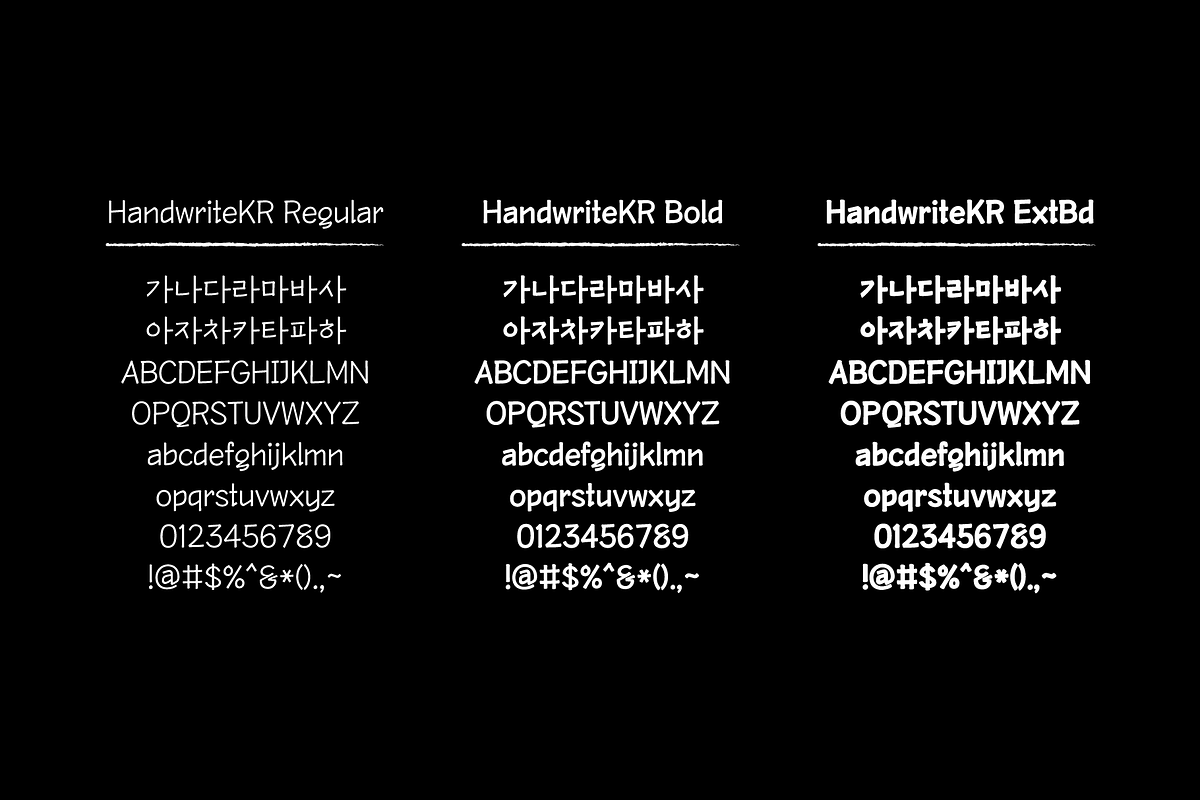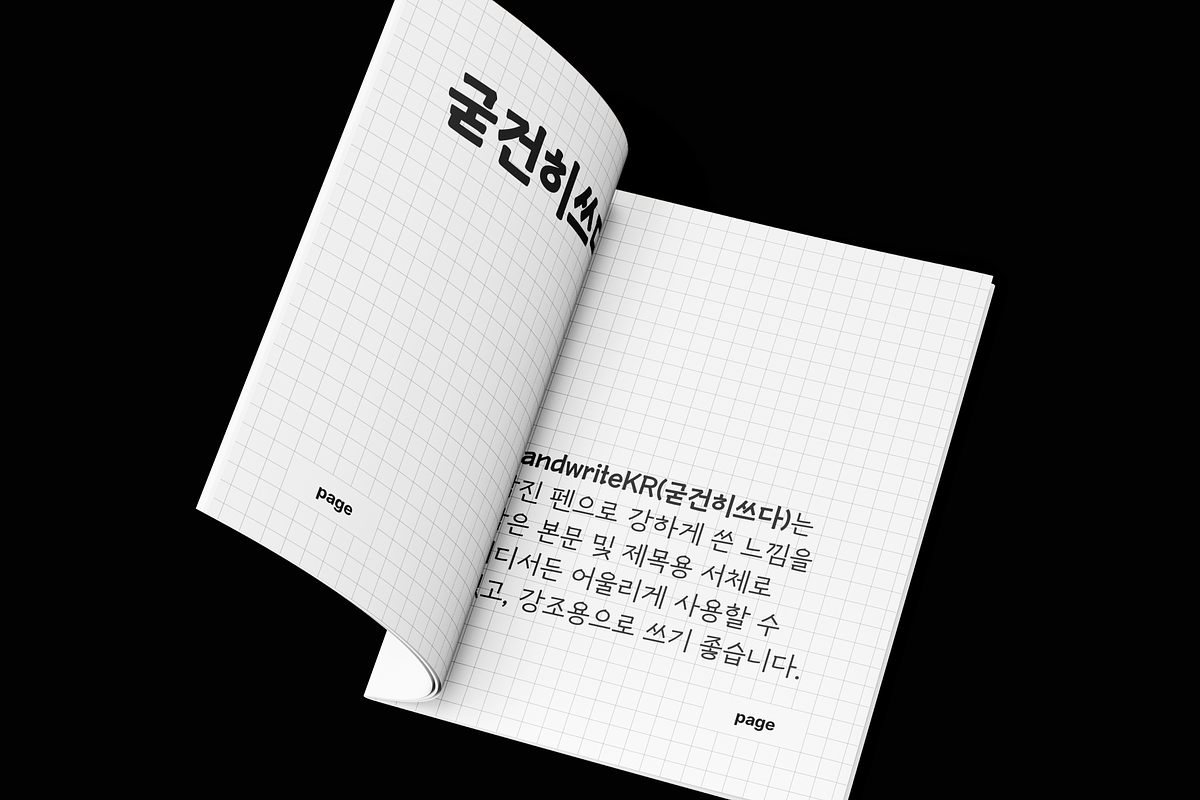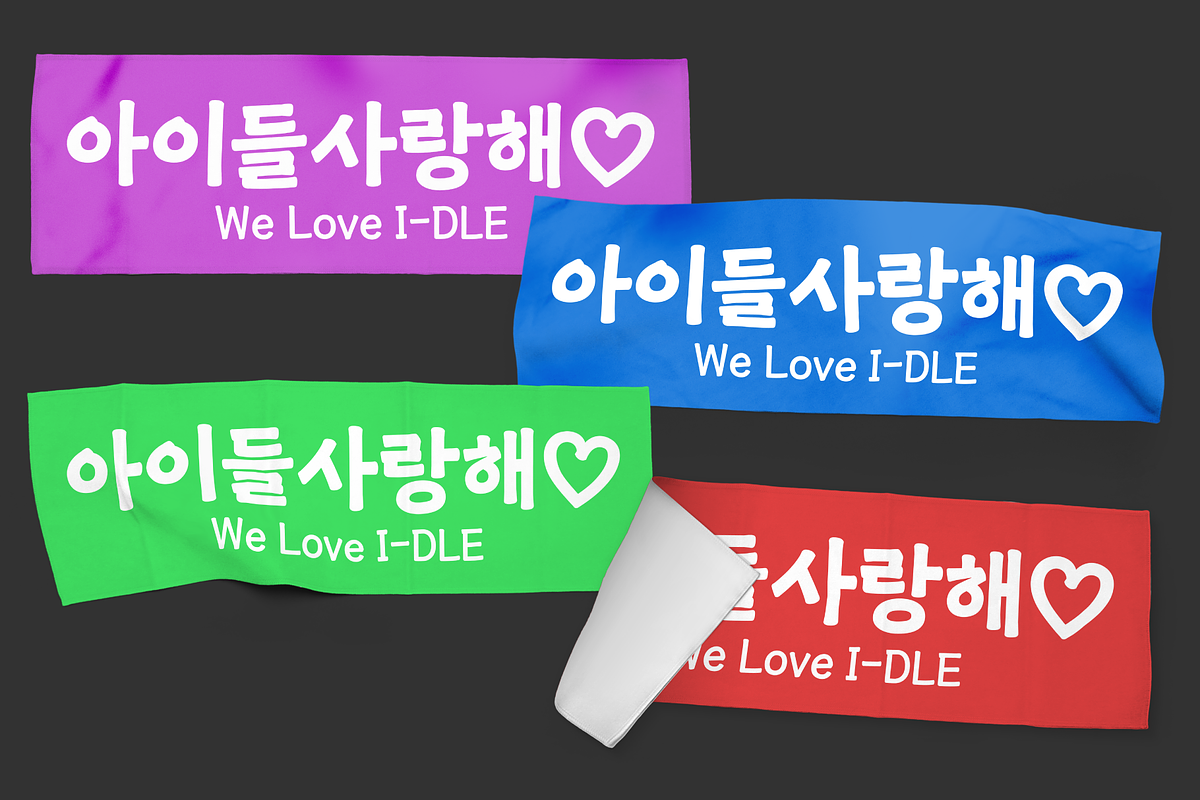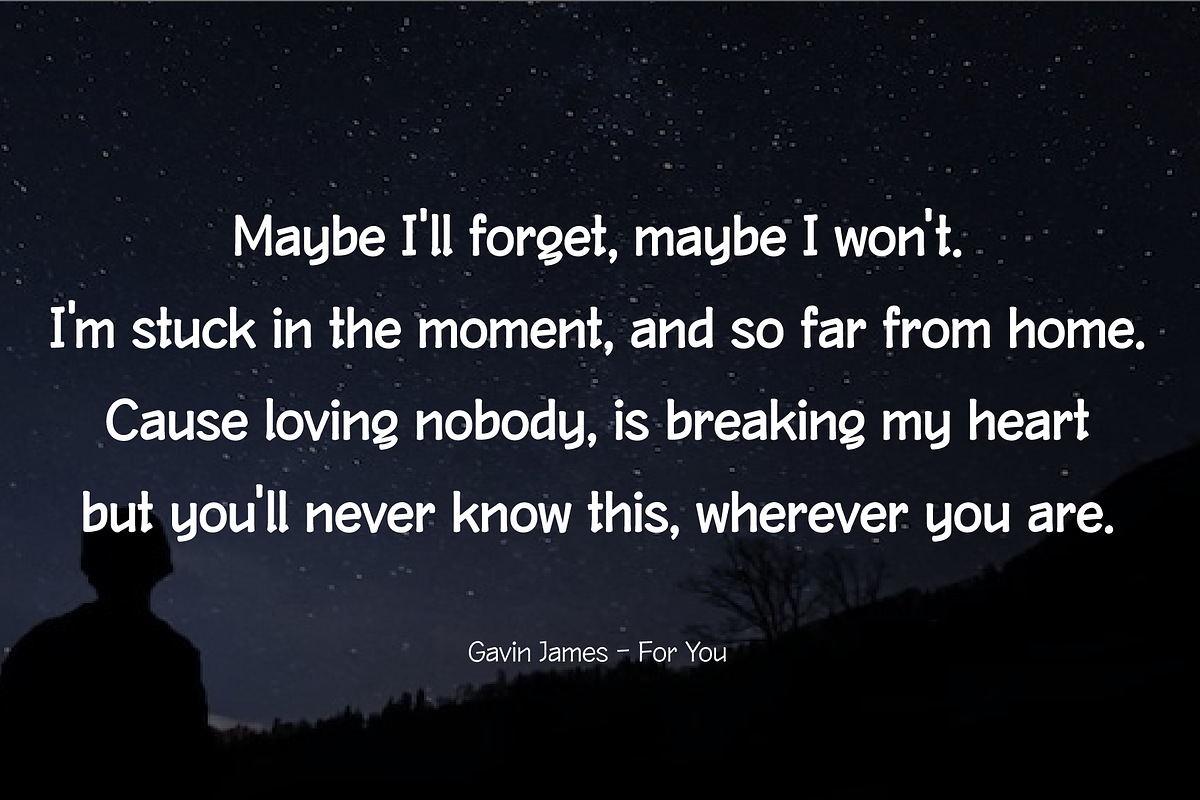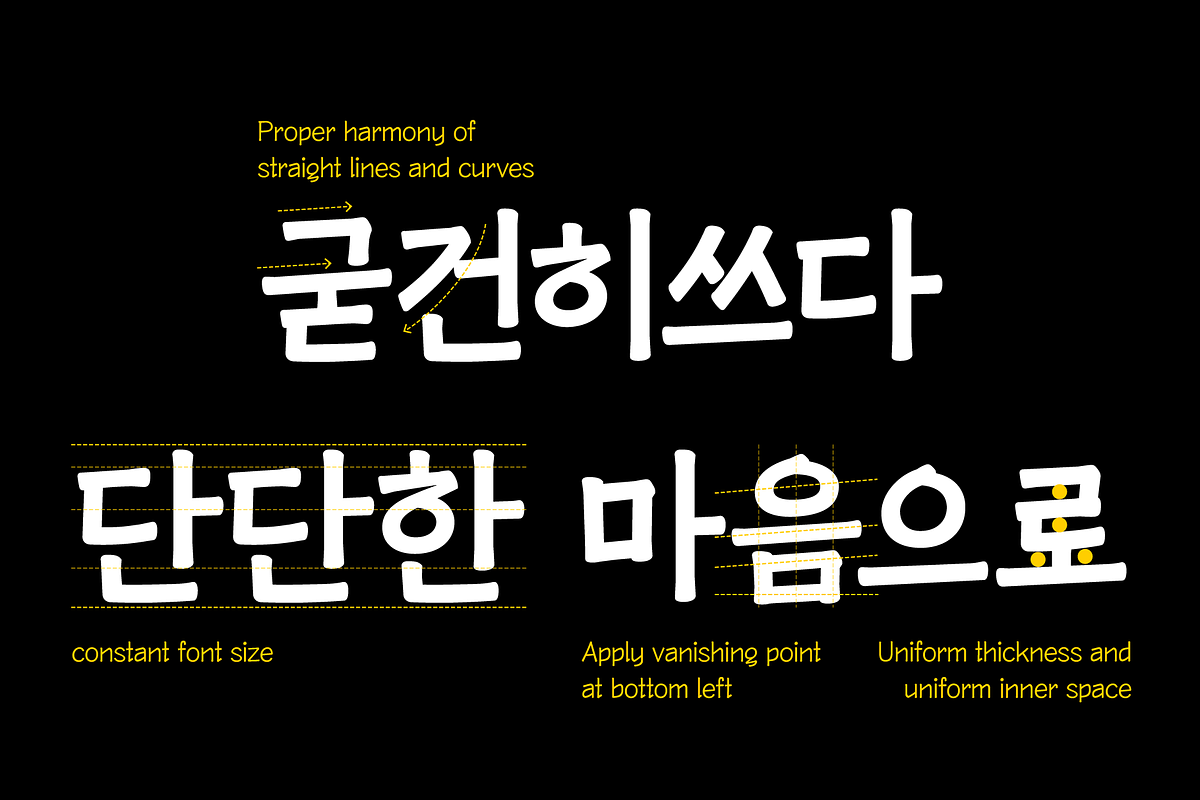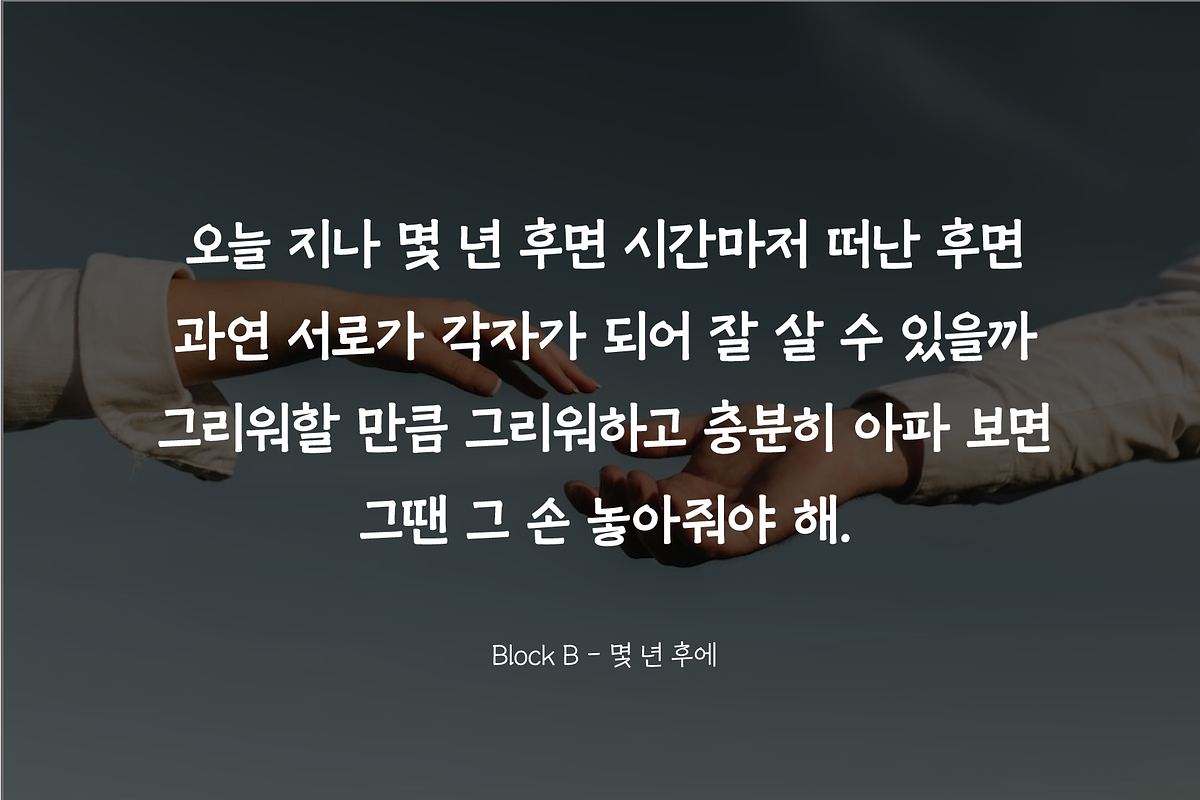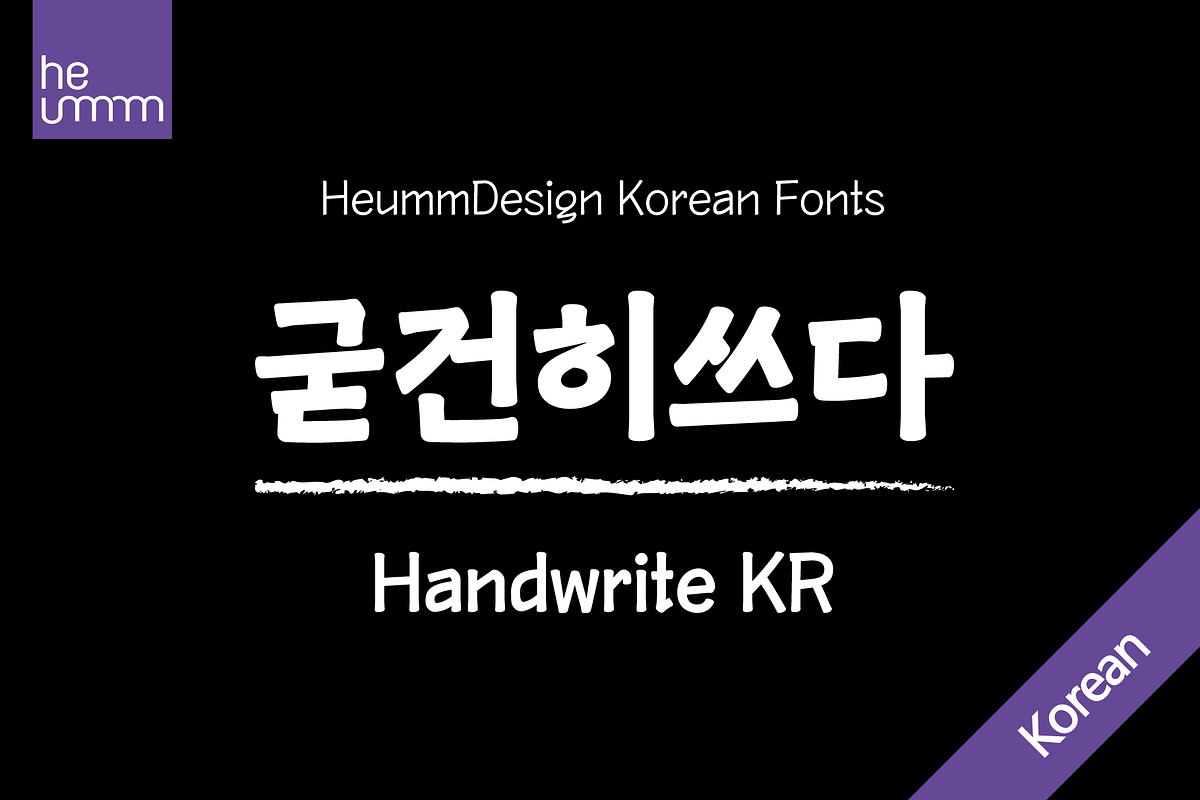
HU Handwrite KR is a handwriting-style font for body text that emphasizes gentleness and solidity by using less curvature and making use of a straight feel.
The handwriting feeling is emphasized through the style that makes use of the natural bending and stroke order. Softness was added in the shape of a gentle curve, and perspective was applied by setting a vanishing point in the lower left corner.
There is 3 weight of HU Handwrite KR : Regular, Bold, ExtraBold